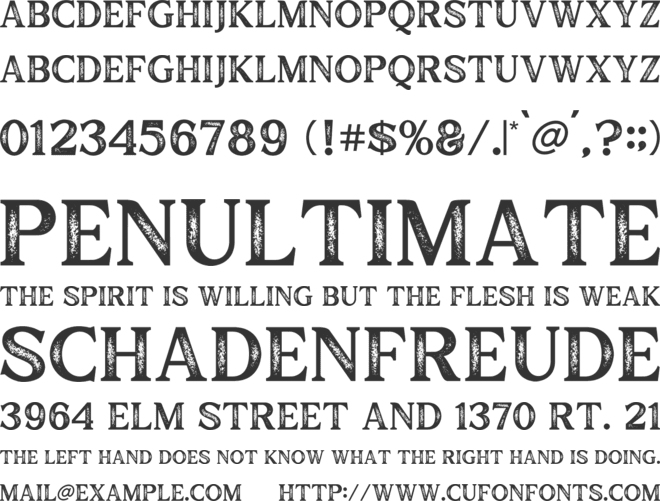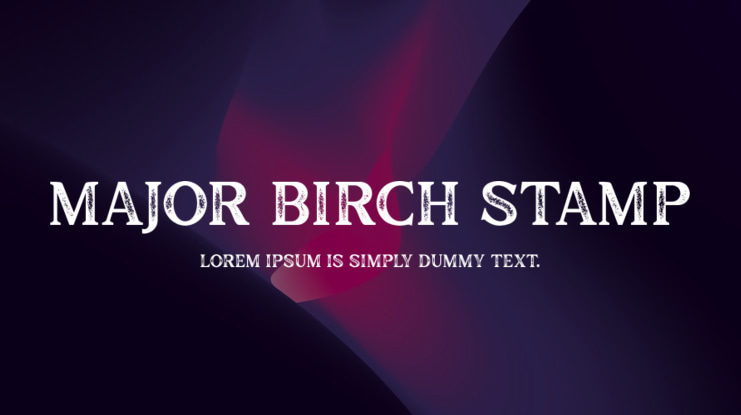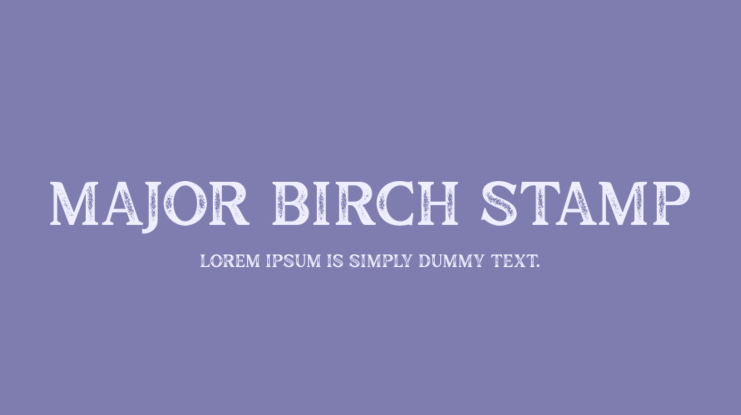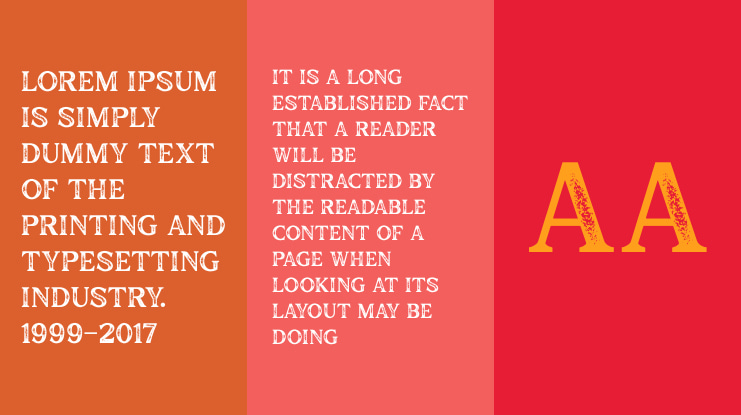
Major Birch Stamp Font
Major Birch is a classic and modern font whose style never fades, a touch of stamp style can make this font look more naturally vintage. This font is perfect for logos, product labels, posters, or any design that wants a classic touch. Major Birch has 12 styles. See more on our website.